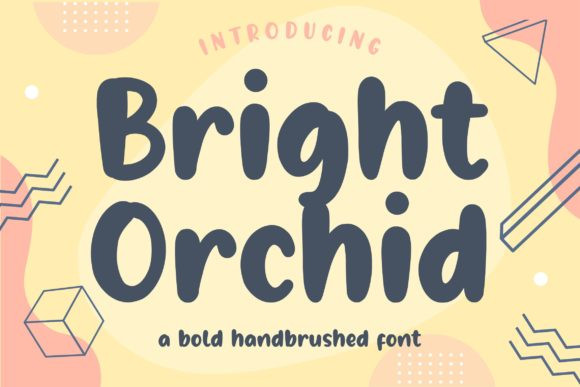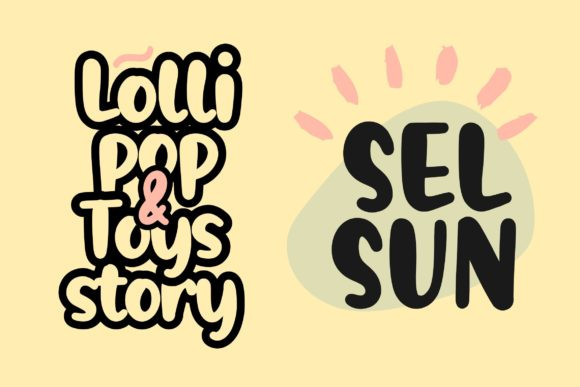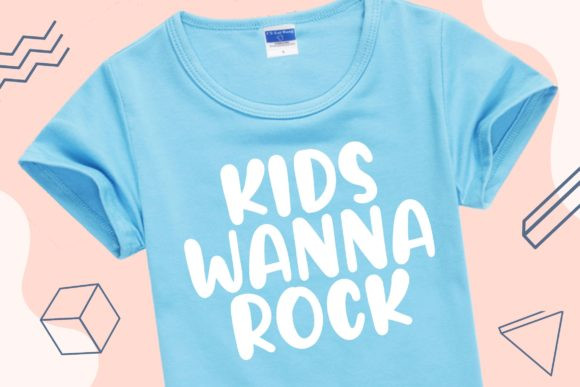
Bright Orchid Font
Bright Orchid is a cute and bold display font. Get creative with its childlike playfulness, and use it to brighten up any kids and school project!